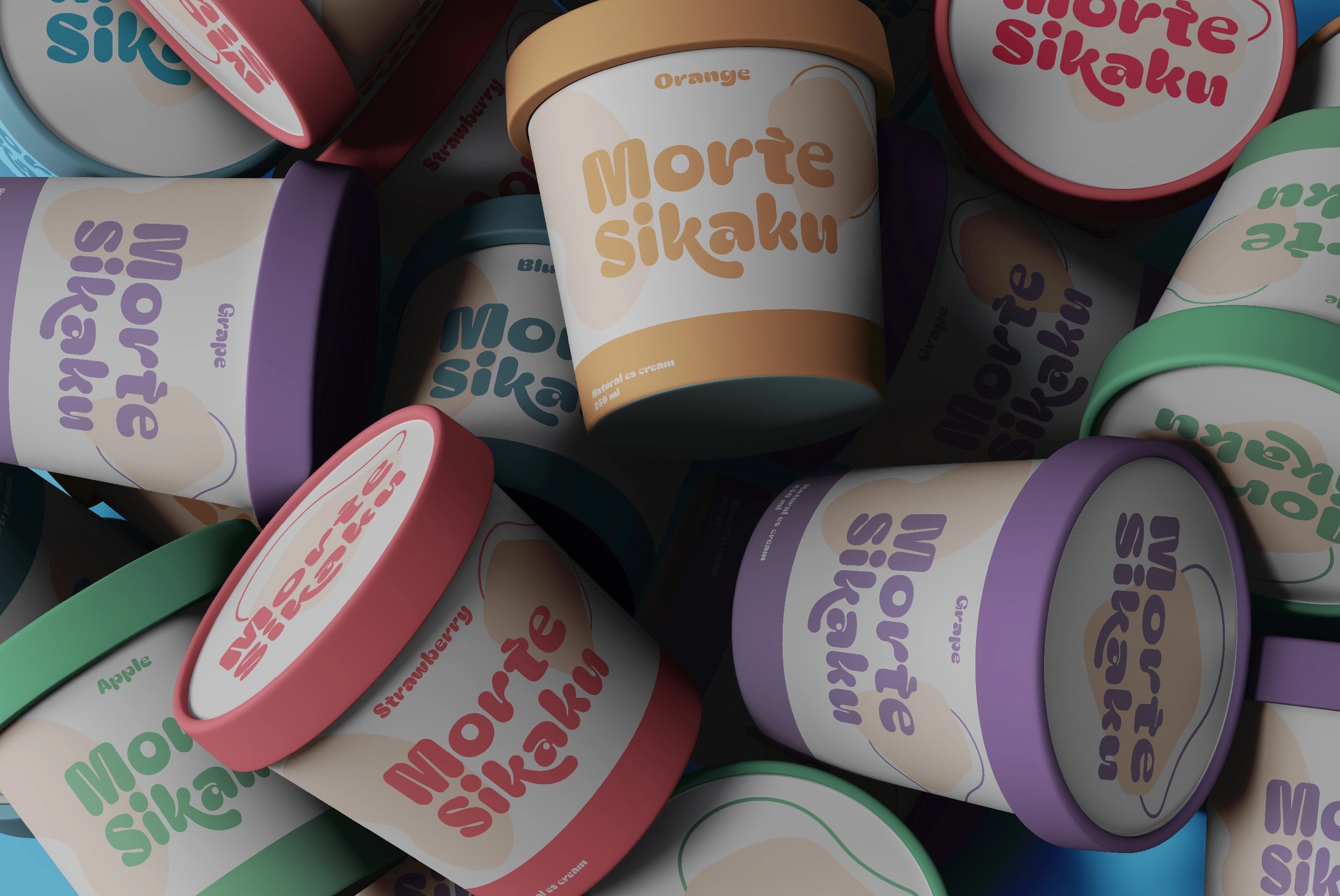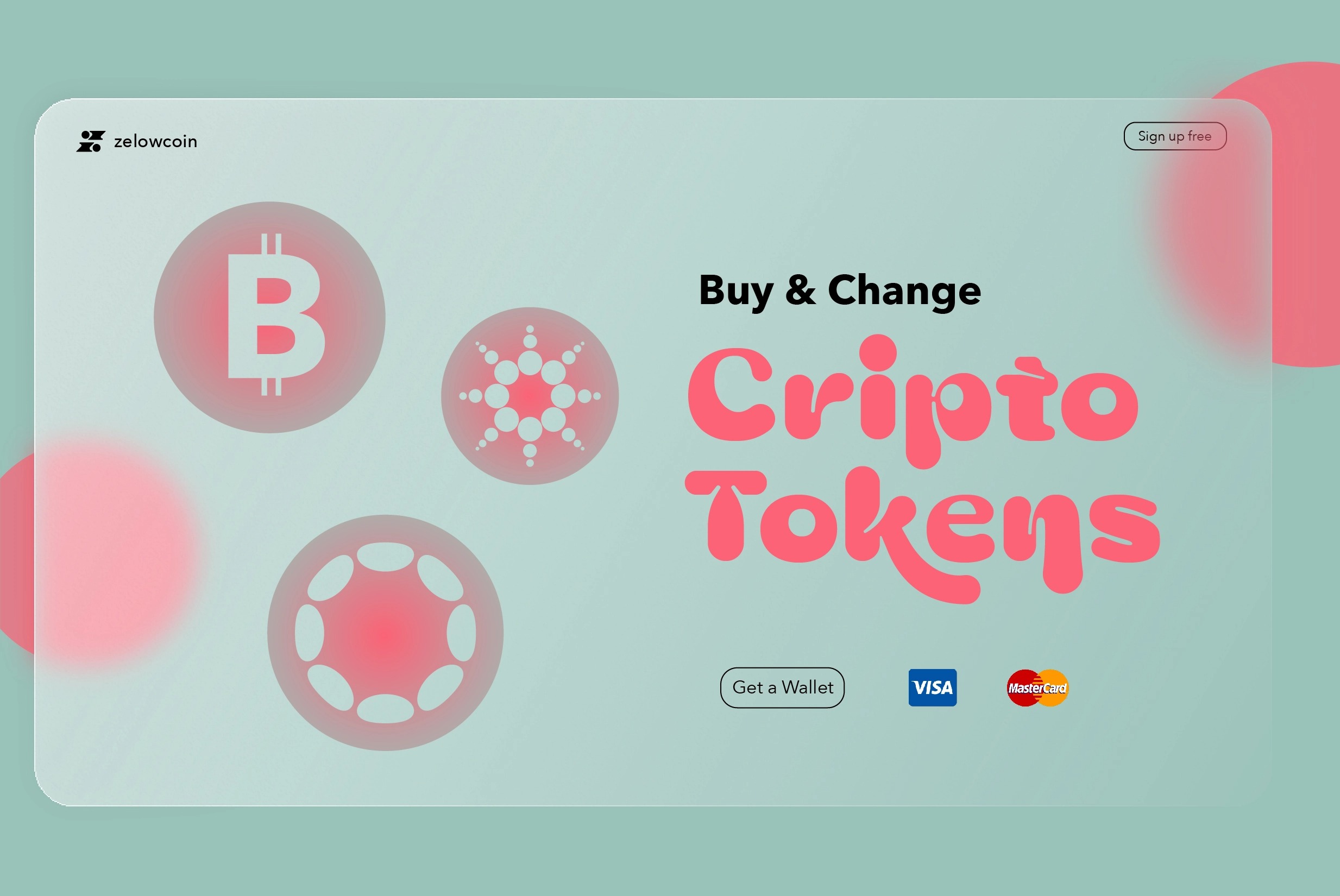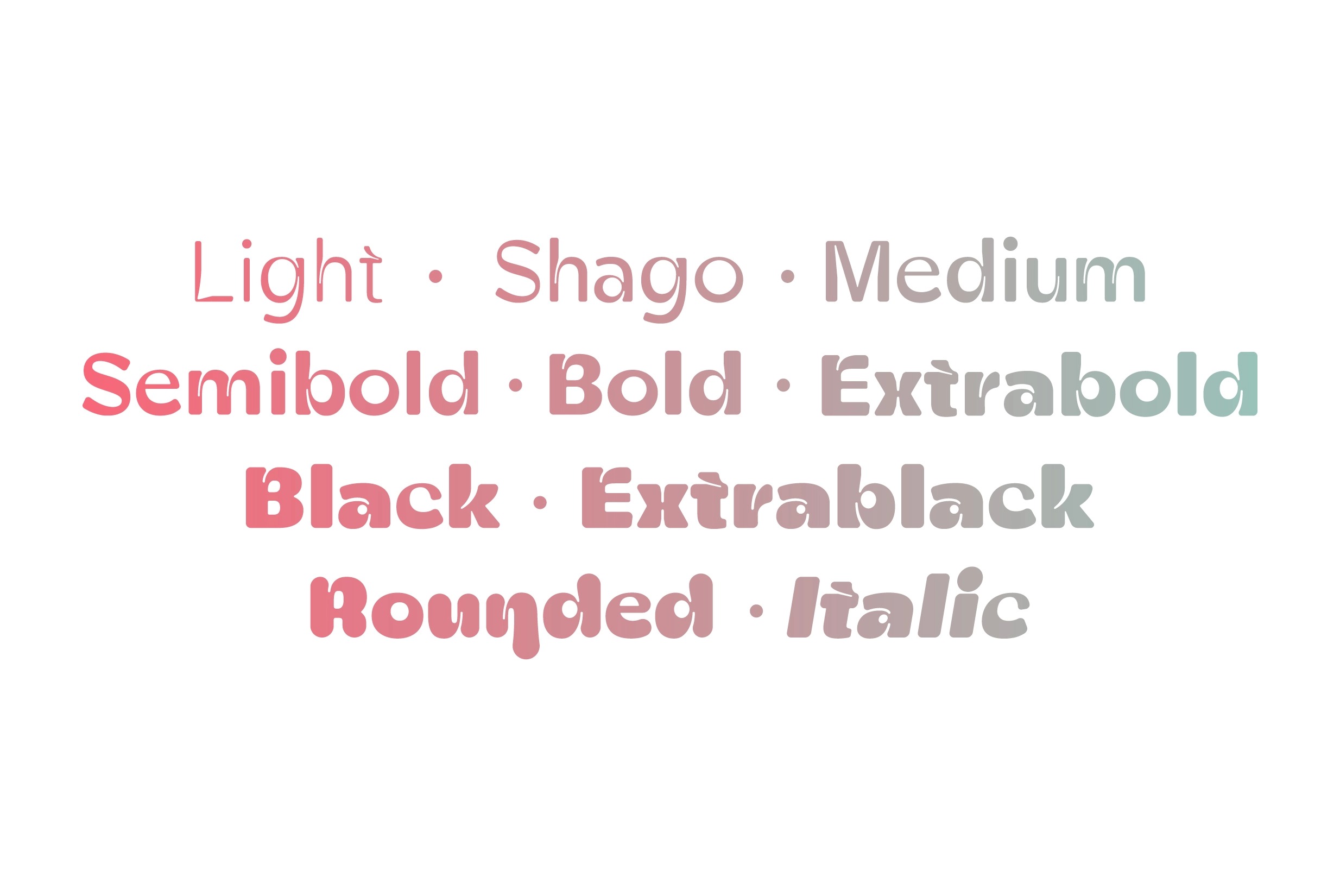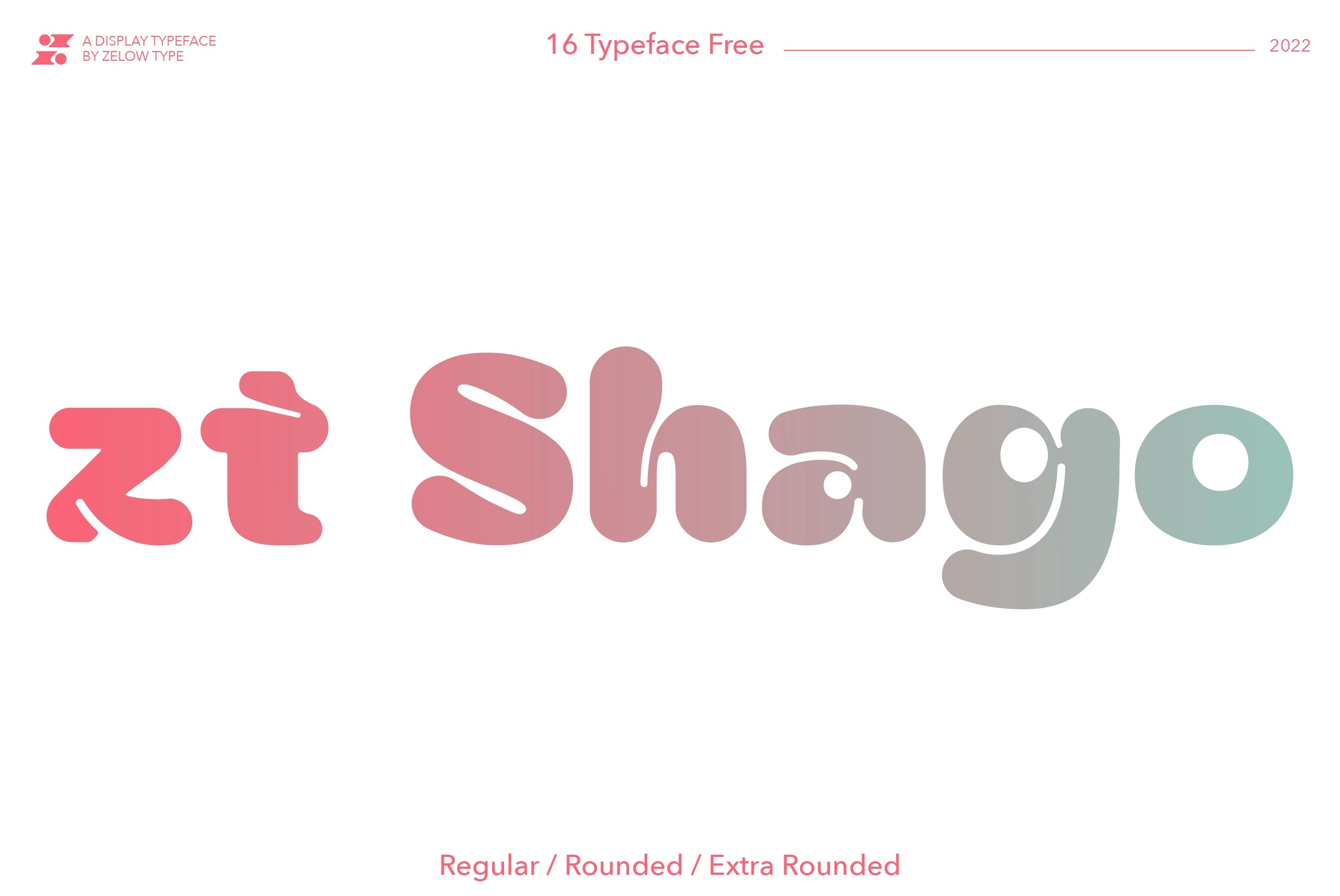
Zt Shago Display Font
This font is a very beautiful and interesting display, and comes with a perfect line for use for various purposes. Zt Shago is a font family of 3 eye-catching display forms, each style has its own character, from very strong and soft angles.When you’re looking for fonts with fun messages, you can find them in the zt Shago family.
Zt Shago is the most extensive font family I’ve ever created, with 33 styles and 16 free font styles. The default and round styles come in regular & Italic.